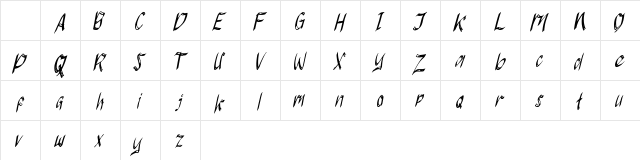
Hackwell is a composed and adaptable typeface that performs quietly and consistently across a wide range of design contexts.
Pro Tip: Use Hackwell in both headline and body roles to test its range before committing to a single application.